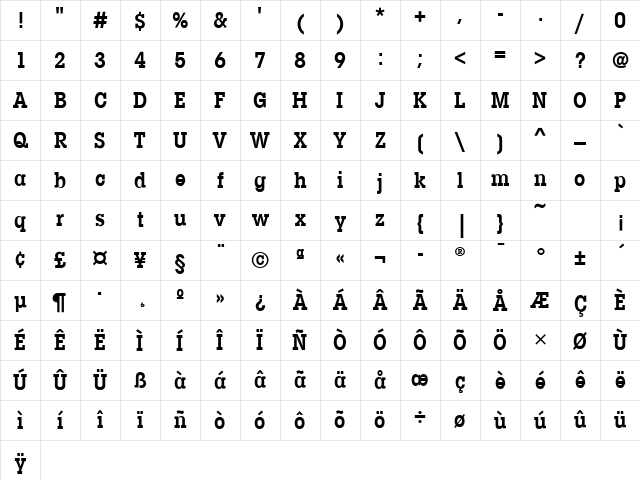
Complete LubalinGraphCdITC Demi glyph index. Displaying only characters natively supported by LubalinGraphCdITC Demi font.
LubalinGraphCdITC is a composed and adaptable typeface that performs quietly and consistently across a wide range of design contexts.
Who designed the LubalinGraphCdITC Demi font?